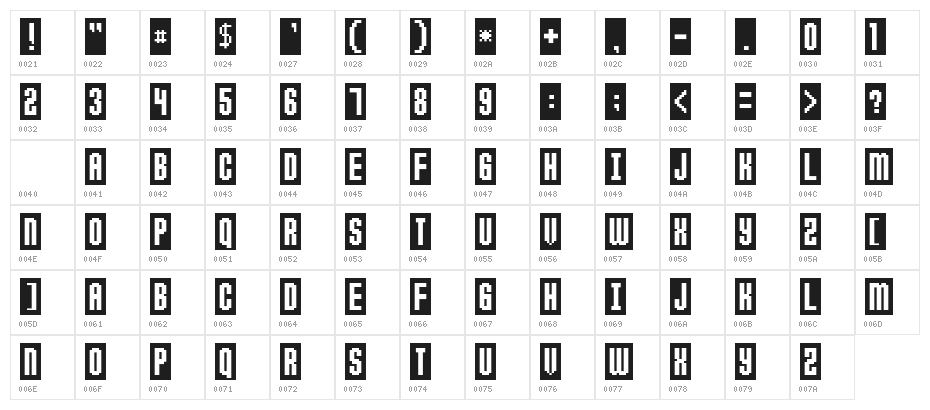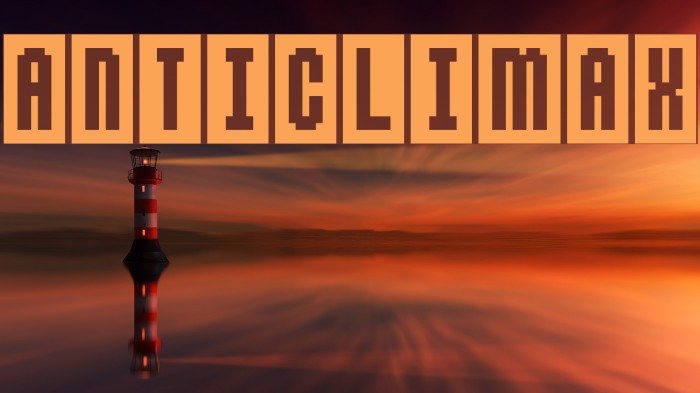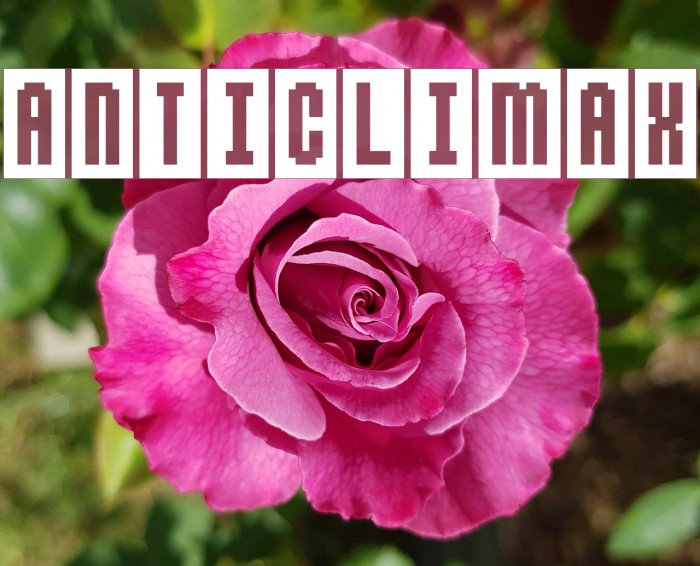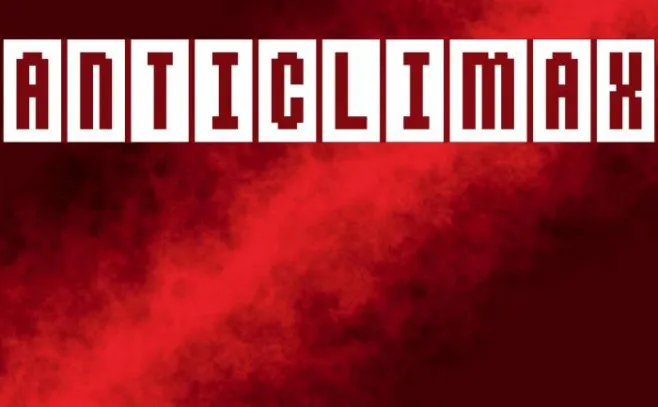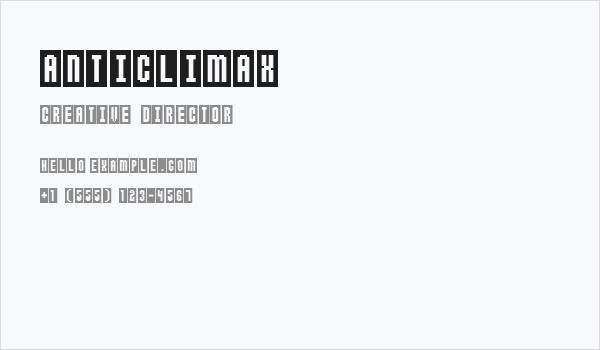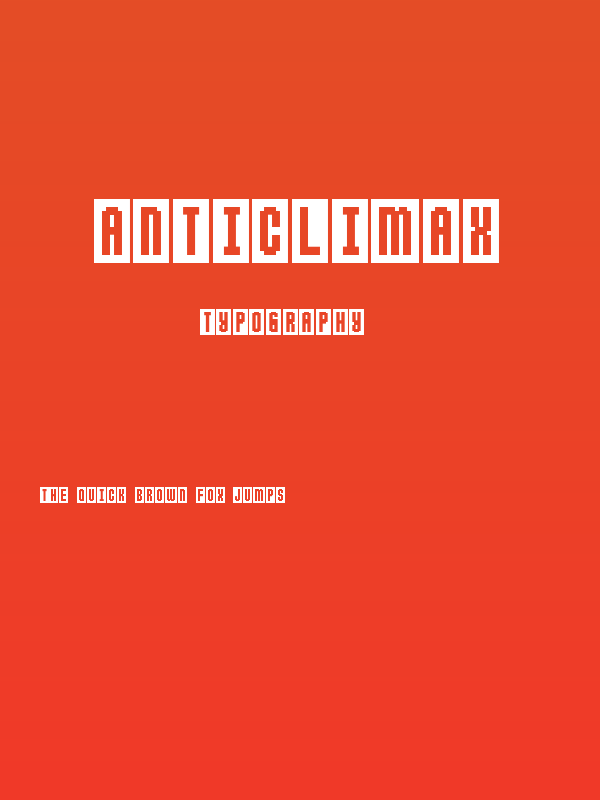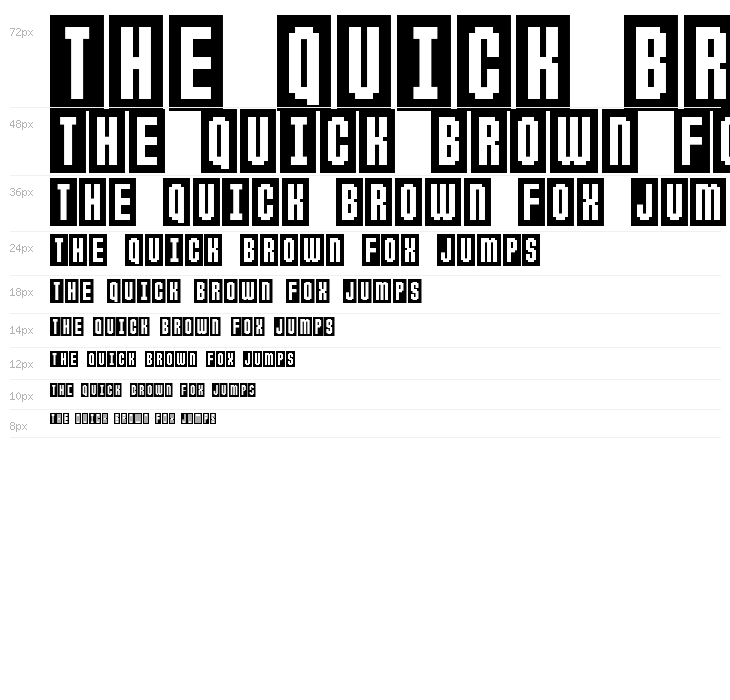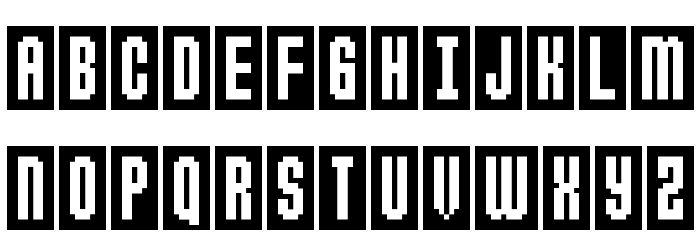
Anticlimax Font
Anticlimax Description
This font features a bold, pixelated style reminiscent of classic arcade games and early digital displays. Each character is enclosed within a solid black square, enhancing its blocky, retro aesthetic. The uppercase and lowercase letters maintain a consistent height, contributing to a uniform appearance. Numbers and special characters follow the same design principles, ensuring a cohesive look across all elements. The font's geometric simplicity and high contrast make it highly legible, even at smaller sizes. Its nostalgic charm is perfect for projects that aim to evoke a sense of vintage digital nostalgia.
| Use Case | Headlines, Logos, Digital Art |
| Proposed Projects | Ideal for video game design, retro-themed posters, digital art projects, and any creative work that seeks to capture the essence of early digital technology. |